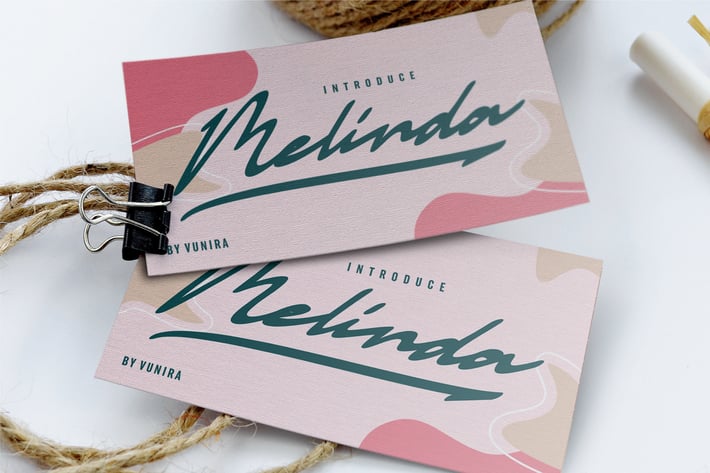
Melinda | Script Font
Melinda | Script Font with a calligraphy style, So beautiful on invitation like greeting cards, branding materials, business cards, quotes, posters, and more!